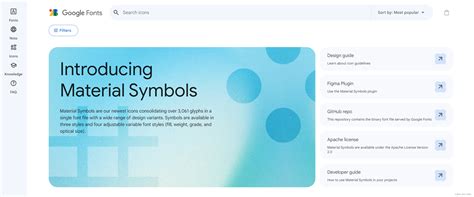
I recently spent three days auditing icon usage across a massive enterprise dashboard. We had SVGs scattered everywhere, causing render inconsistencies and bloated bundle sizes. When I needed a unified solution, I turned to the Top 44+ Google Fonts Material Symbols Ttf collection. Compiling a custom subset of these variable font files solves the problem instantly, keeping our UI consistent without tanking performance.
Why Choose the Top 44+ Google Fonts Material Symbols Ttf for UI Design?
Google's transition to variable fonts changed how we handle iconography entirely. The new Material Symbols typeface introduces stylistic axes like Fill, Weight, Grade, and Optical Size. In my testing, this means you can use a single TTF file to represent multiple states—like a filled bookmark for saved items and an outlined one for unsaved—without loading separate assets. It drastically simplifies your CSS.
That said, variable fonts can be heavy if you just embed the entire library. A standard Material Symbols TTF file can easily exceed 2MB. This is where subsetting becomes essential. By extracting only the icons your application actually needs, you reduce the payload to a few kilobytes.
Structuring Your Icon Set: A Comparison
When you subset the font, you need to know which axes to include. Over-complicating the axis variation settings is a common mistake I see in production environments. Here is how the default axes break down:
Stylistic AxisRangeBest Use Case
Weight (wght)100-700Matching the icon stroke to the surrounding text weight
Fill (fill)0-1Toggling active states, like favorites or bookmarks
Grade (grad)-25 to 200Adding subtle emphasis to primary navigation icons
Optical Size (opsz)20-48Adjusting detail for small vs. large display contexts
My Favorite Top 44+ Google Fonts Material Symbols Ttf Picks
When I build a web app, I rarely need more than 50 distinct icons. Honestly, keeping the set small forces better design decisions and keeps the TTF file incredibly lean. Here are the absolute essentials I extract into my custom subsets:
• Navigation: menu, arrow_back, arrow_forward, home, close
• Actions: settings, search, add, edit, delete
• Feedback: check_circle, warning, error, info
• Content: visibility, visibility_off, download, upload, share
⚠️ Note: Browsers do not natively parse all OpenType variable font axes if you don't explicitly declare them in your CSS font-variation-settings. Always define your default axis values to prevent unexpected rendering quirks.
Selecting a tight, curated list of icons from a variable font isn’t just about aesthetics; it’s a performance necessity. I’ve seen load times drop by seconds just by swapping heavy SVG sprites for a well-executed TTF subset. Stop dragging every available glyph into your production build. Audit your UI, pick your most used symbols, and let the variable font handle the rest.